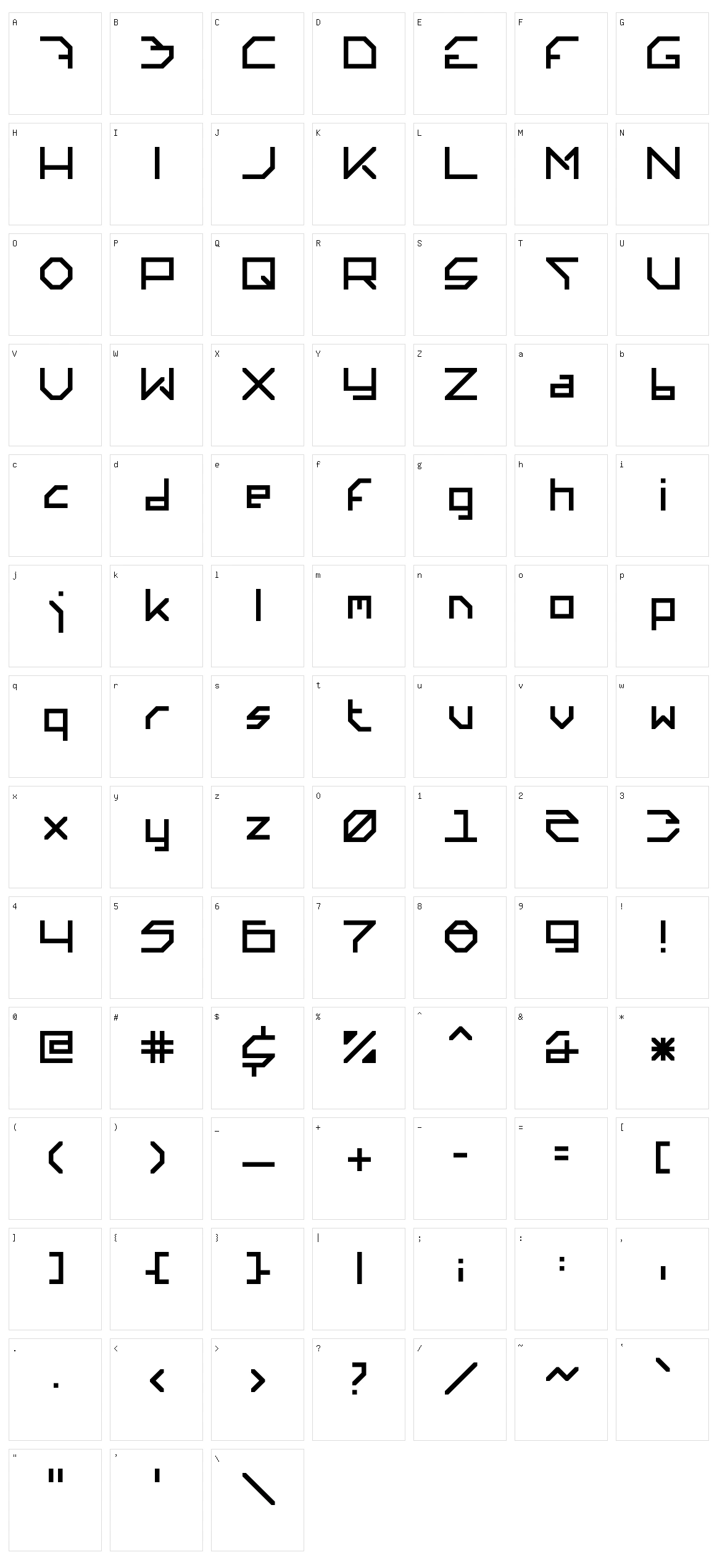
The free font Altera is carefully designed by balazs95, showcasing a thoughtful balance of creativity and usability and falls under the Square font style. When you download the ZIP file, it contains only 42.81 KB of font files, making it lightweight and quick to download. Please review the license details below to understand permitted usage and distribution rights. If license information is not available, we recommend using this font for personal projects only or contacting the author directly for commercial usage permissions.